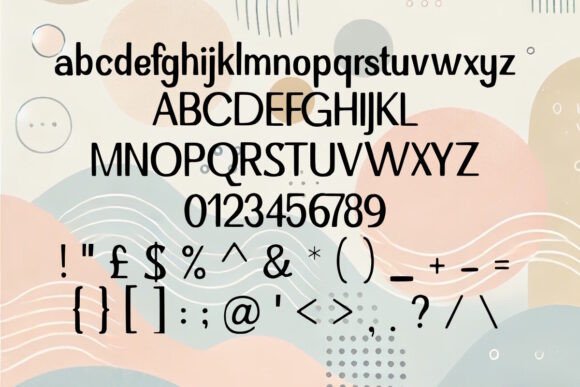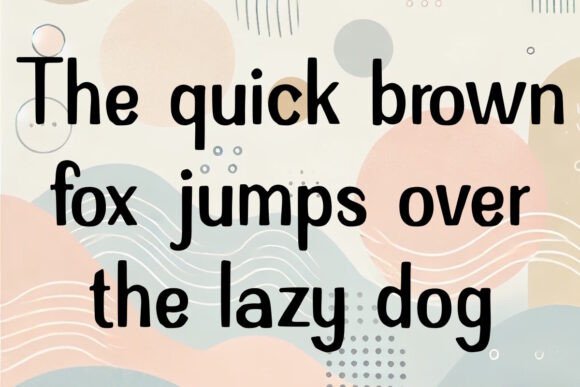
Introduction to Mildly Concerned Font
Not too neat, not too messy—Mildly Concerned sits somewhere in between, like a font that just remembered it left the oven on.
With its subtly wobbly strokes and casual, handwritten feel, this font brings a playful, human touch to any project It’s relaxed, quirky, and just the right amount of imperfect—perfect for when you want personality without total chaos.
Key Features of Mildly Concerned Font
Why Choose Mildly Concerned Font?
Mildly Concerned Font offers exceptional quality and versatility, making it a valuable addition to your design toolkit. Whether you’re creating for personal projects or commercial use, Mildly Concerned Font delivers professional results.